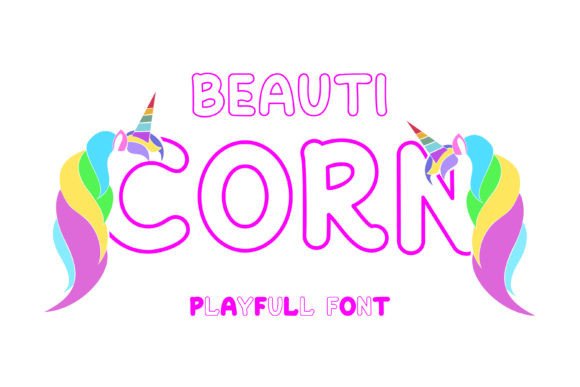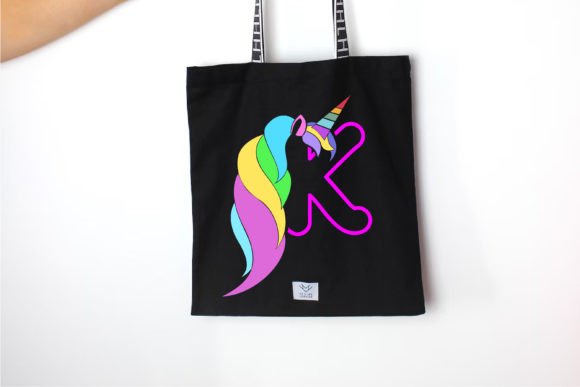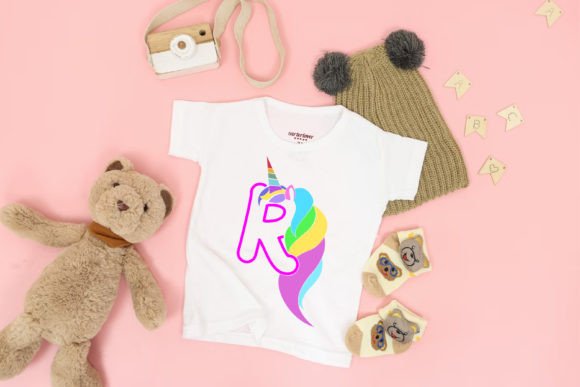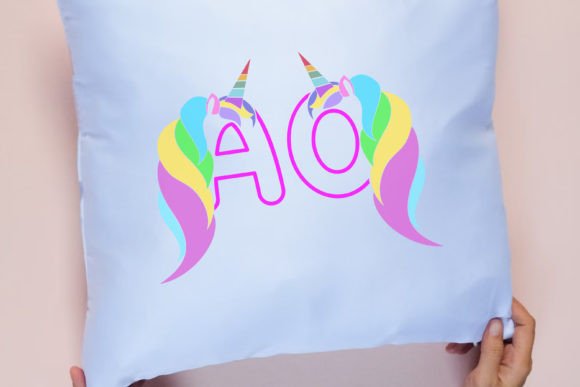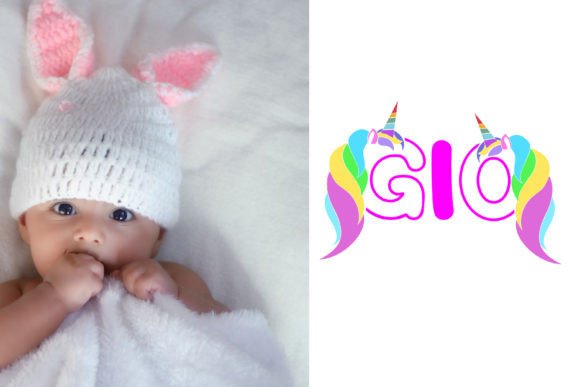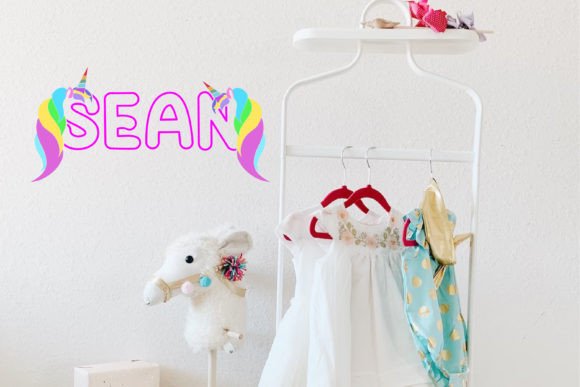
Introduction to Beauticorn Font
Beauticorn Decorative Font is a cute decorative font, featuring lovely ornaments.
Fall in love with its authentic feel and use it to create gorgeous stationary art, eye-catching social media posts, and cute greeting cards .